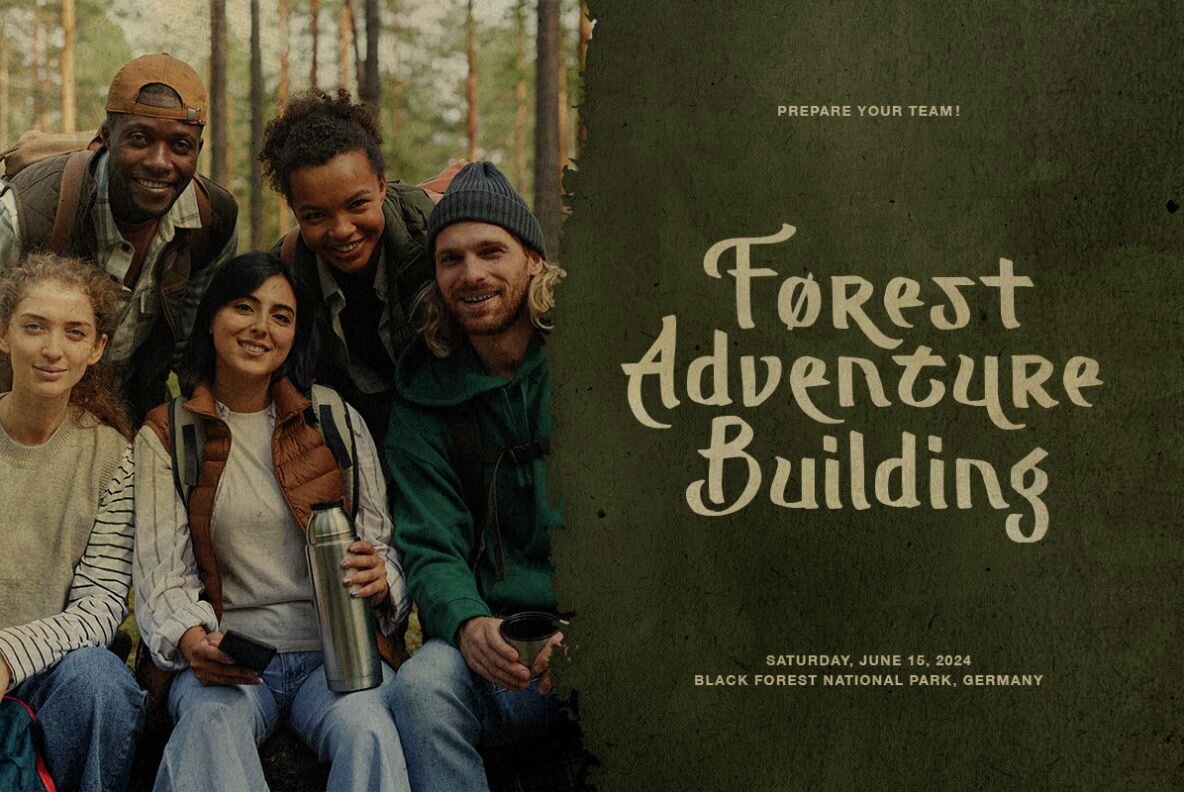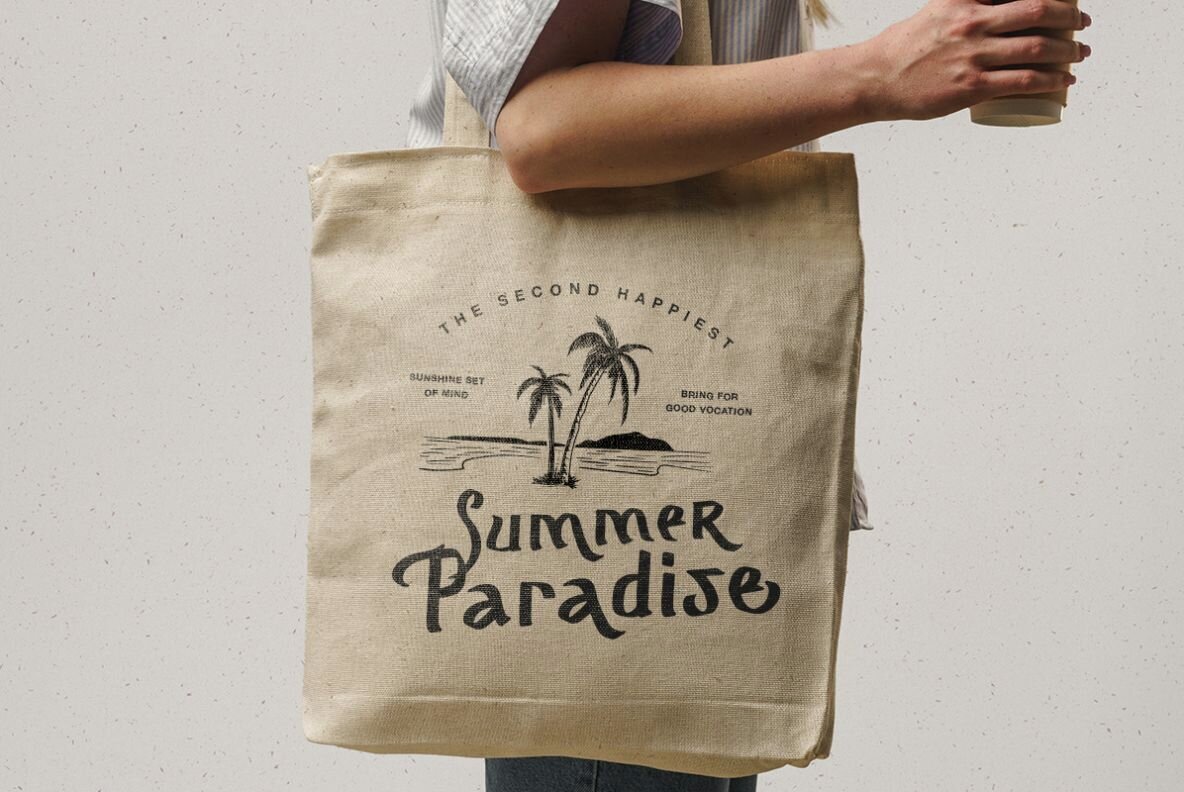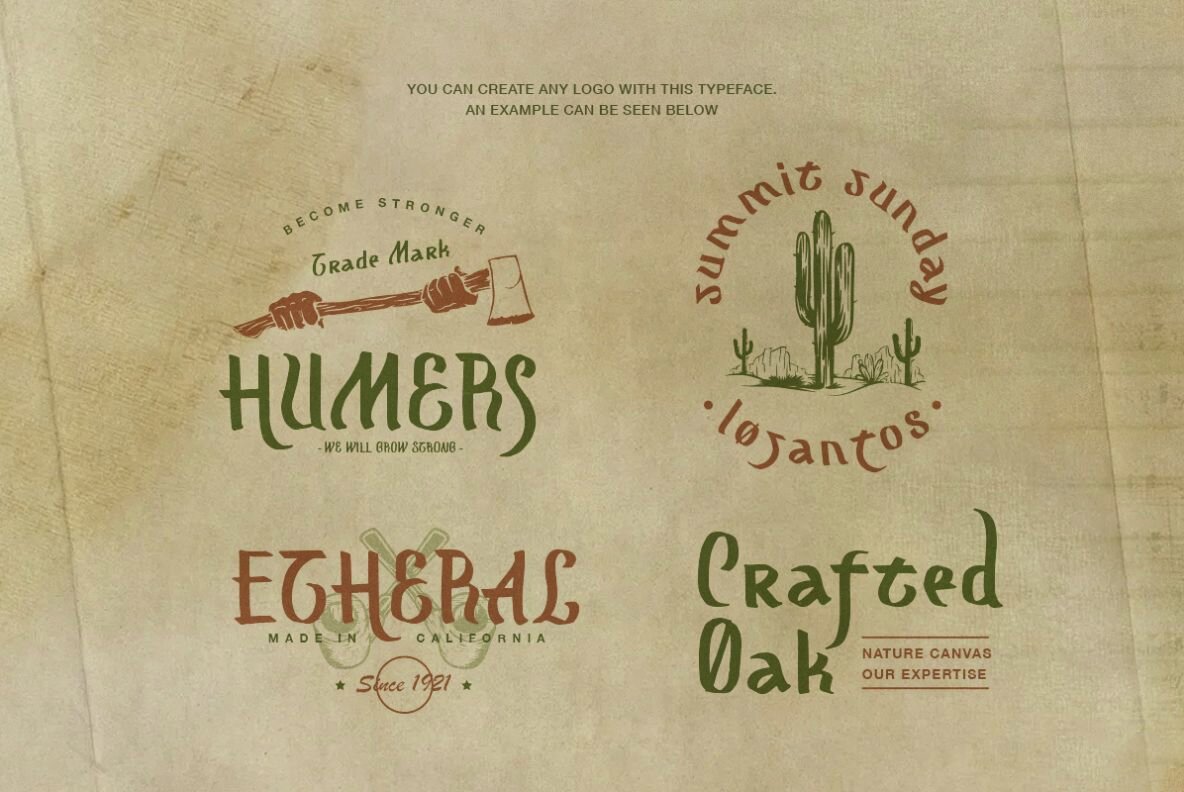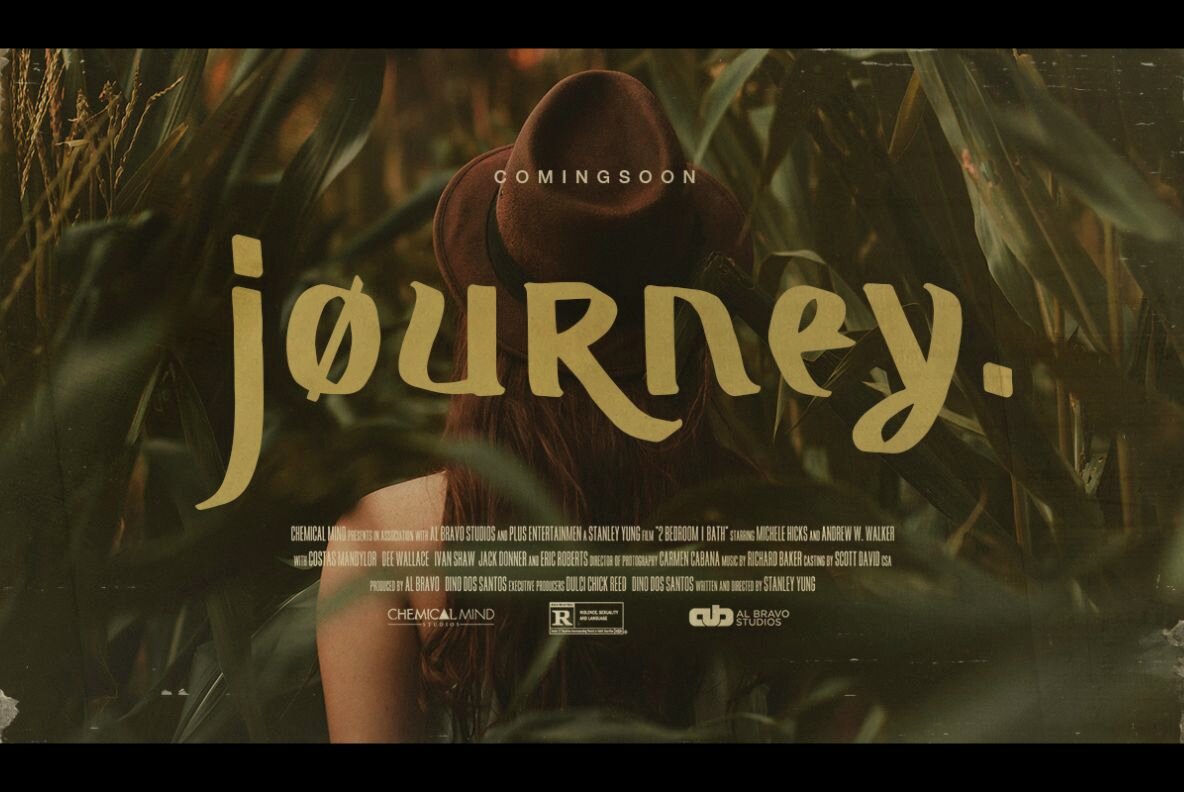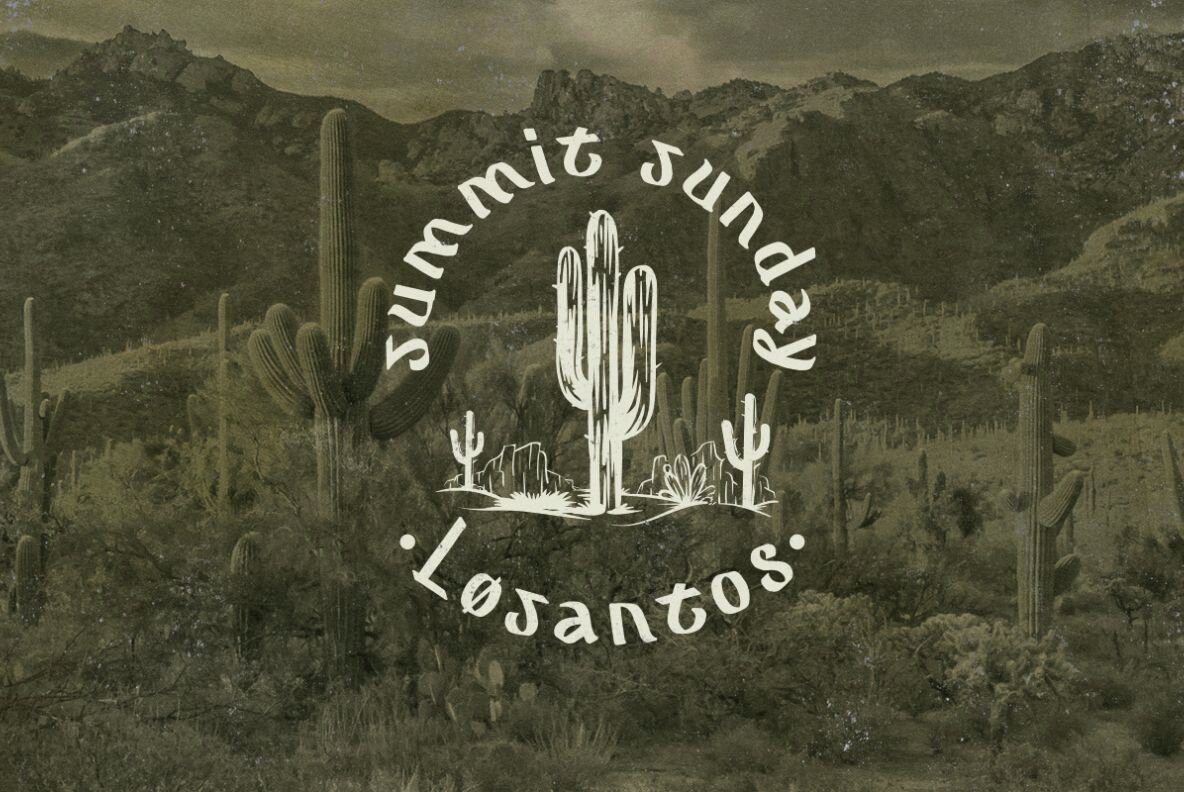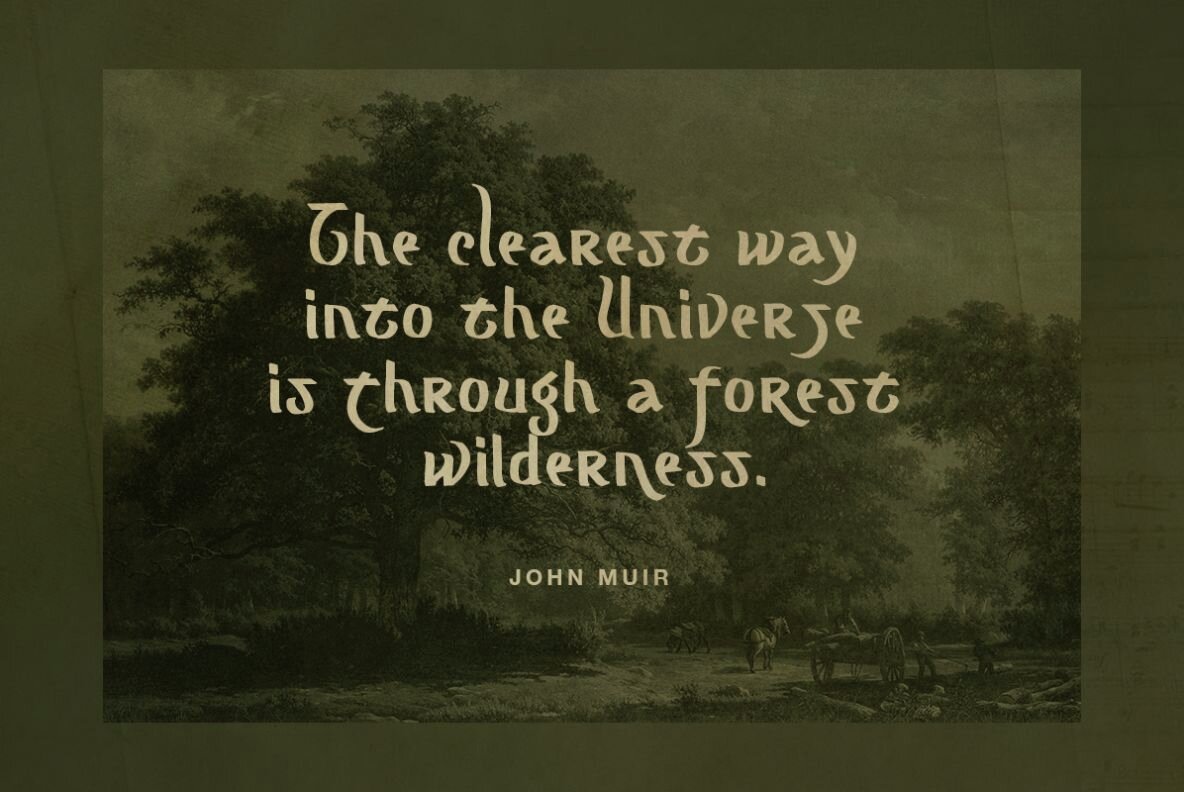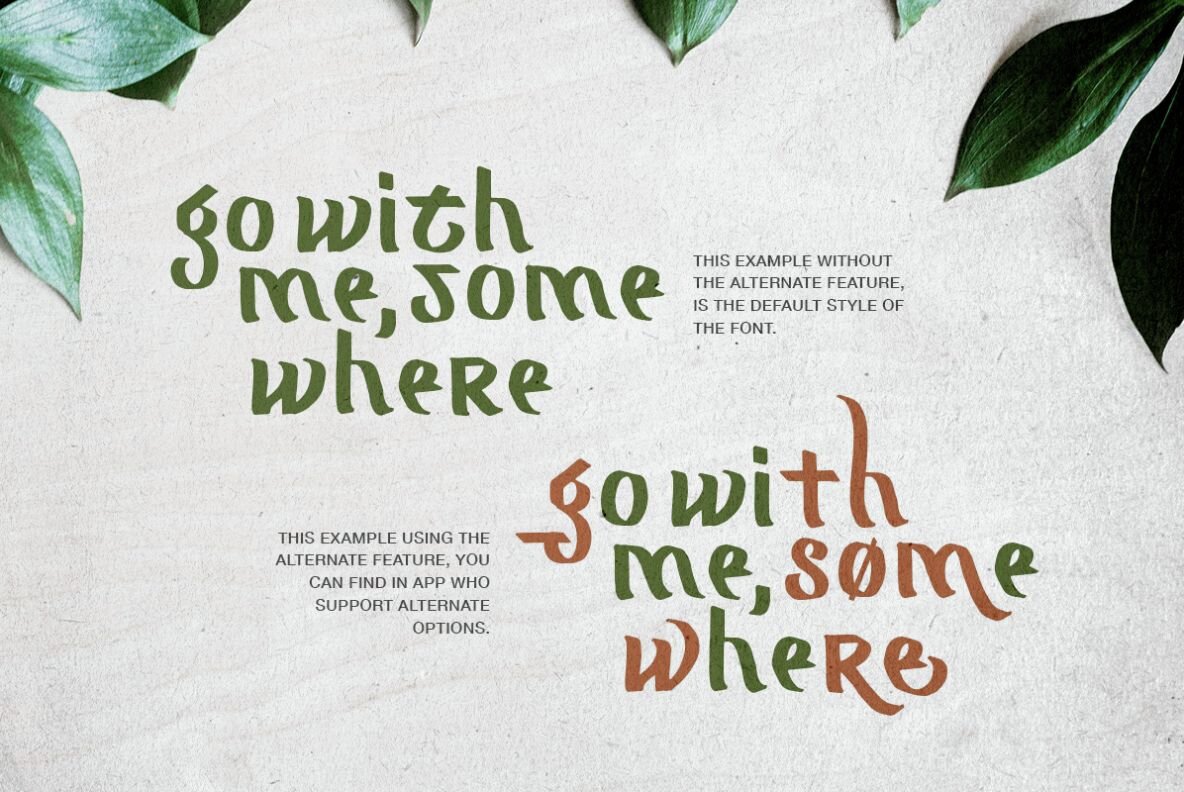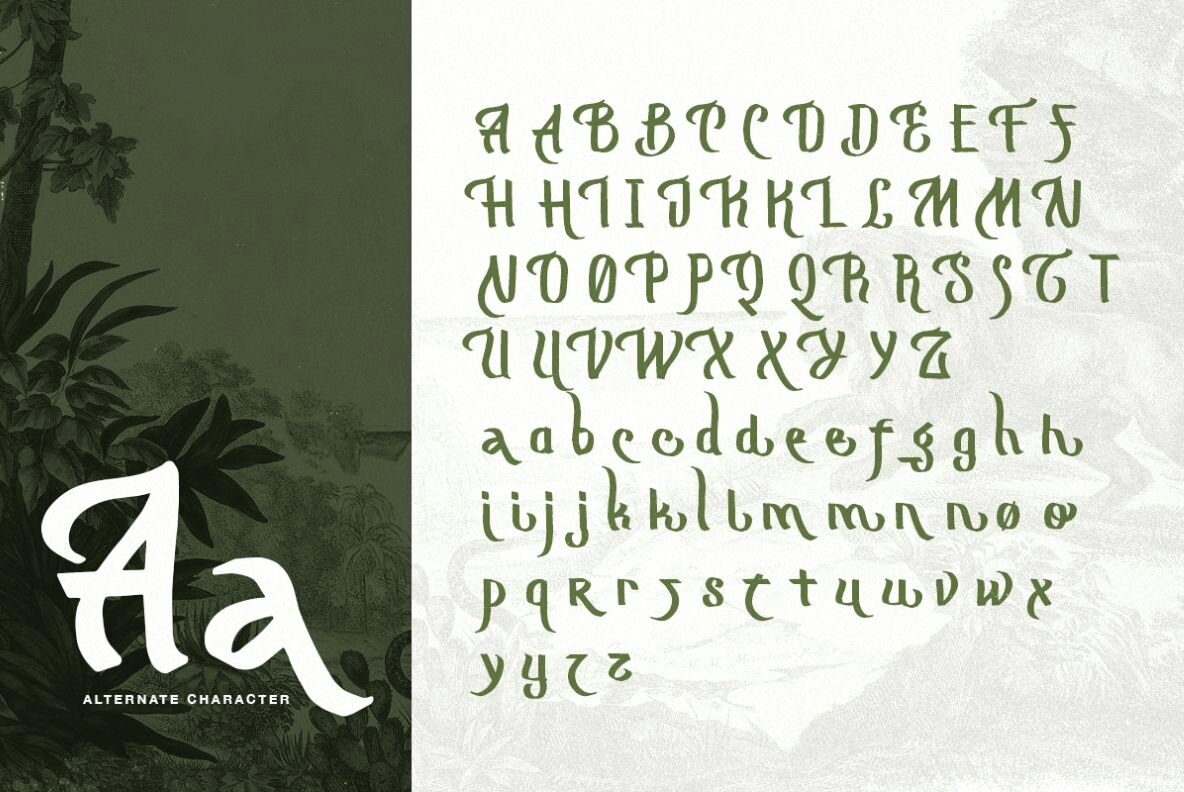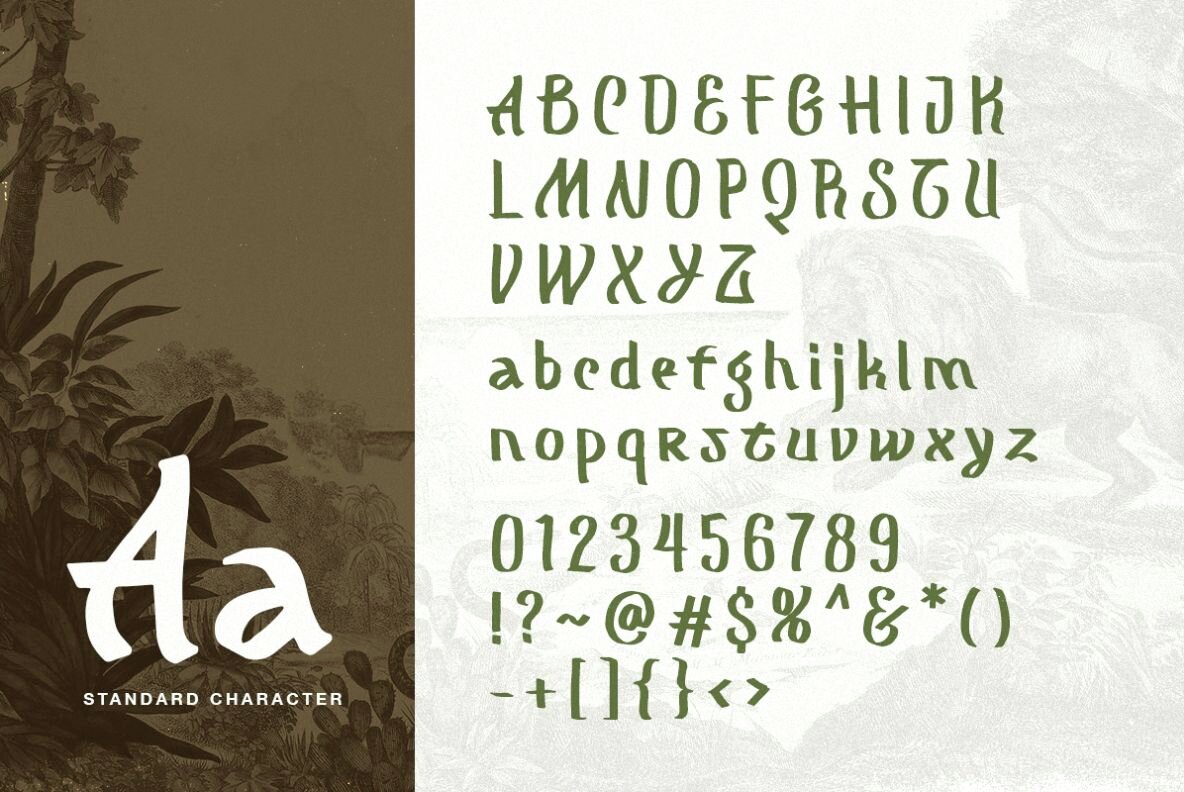
Mograph Font
Mograph Regular
Mograph is a wild and stylish blackletter typeface that will make your project looks more vintage and raw. It comes with handwritten and rough feel, will make your design more handmade. There's a lot alternates that you can use to make your project even more unique! You can use this font for quotes, logo, branding, or any project that need outdoor and adventure looks. Also comes with multilingual support!